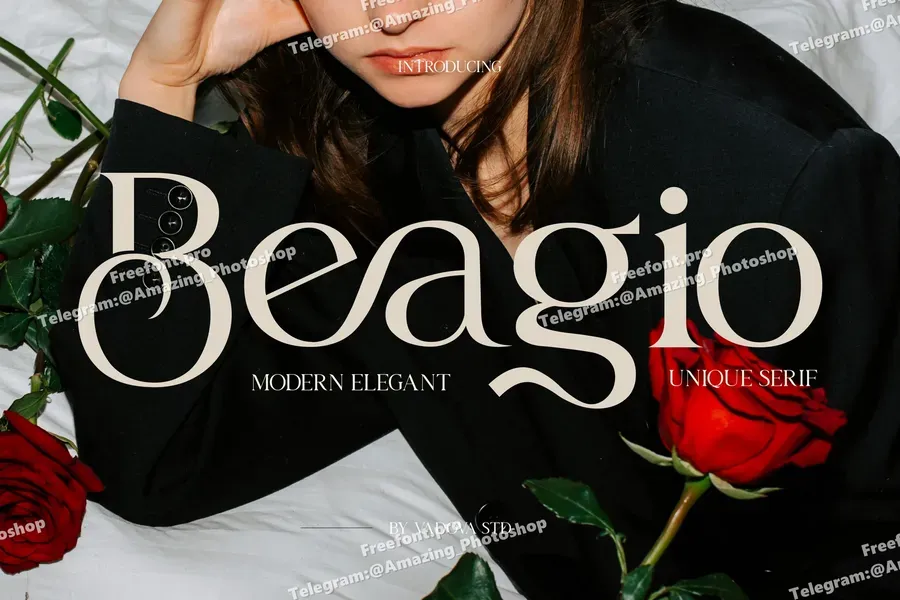
Beagio is a modern elegant serif font designed with sophistication and emotional depth, perfect for romantic branding, editorial design, and high-end packaging. Its delicate curves and graceful proportions evoke timeless beauty, enhanced by poetic tones and floral visuals. Ideal for perfume labels, fashion spreads, invitations, and quotes, Beagio delivers an expressive and luxurious aesthetic with every letter. This typeface turns your message into an intimate and visually compelling story.
Uppercase & Lowercase characters
Numeral & Punctuations